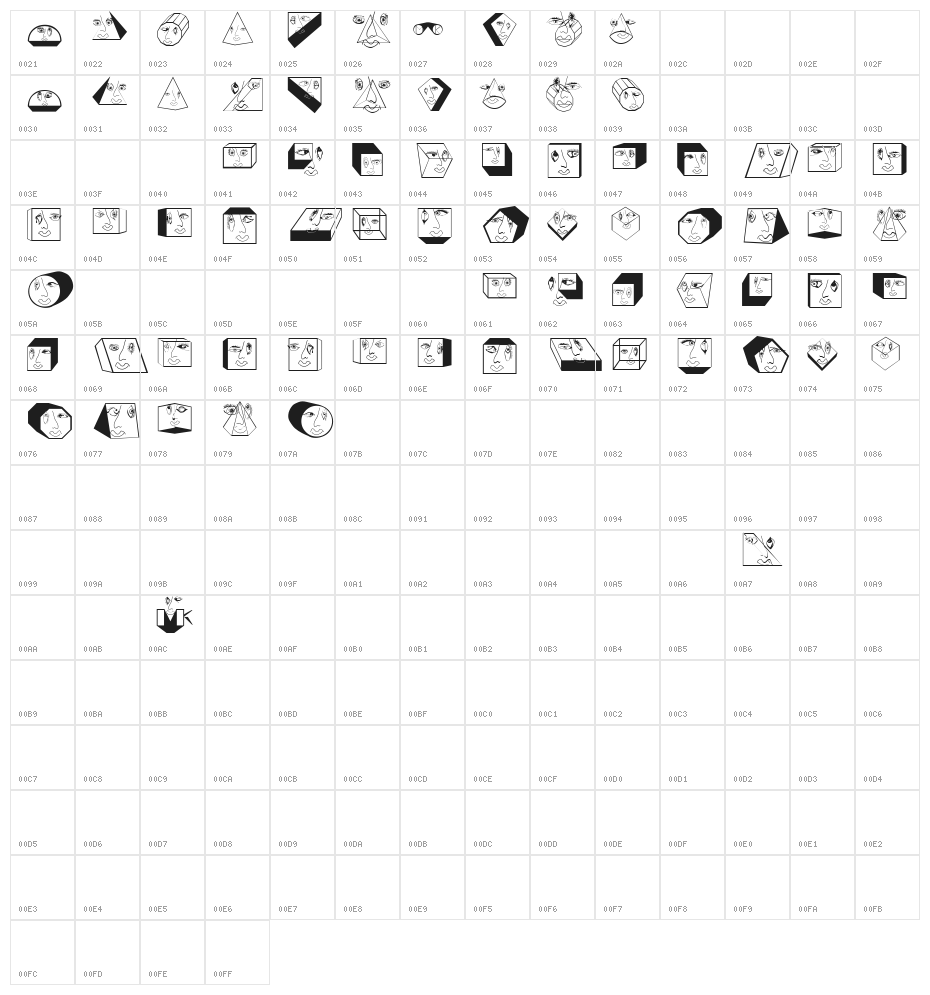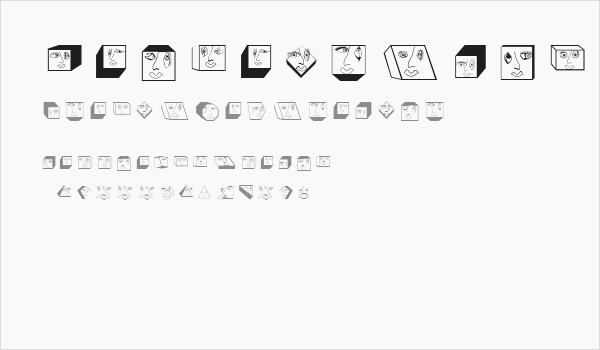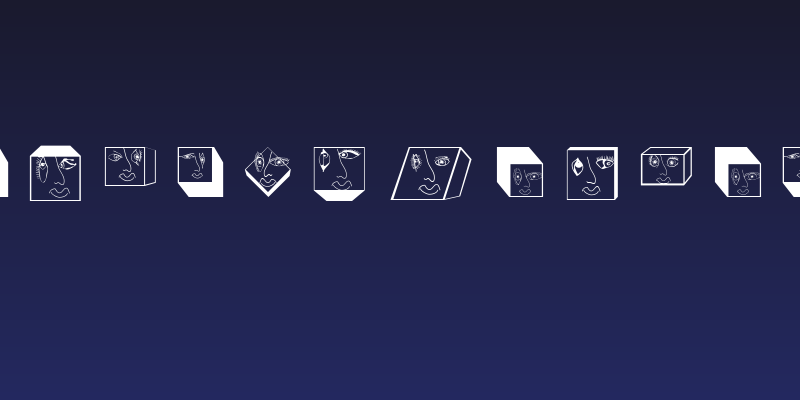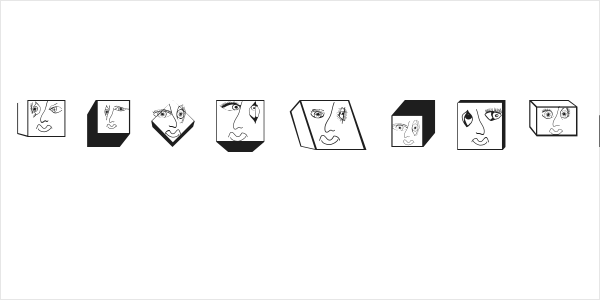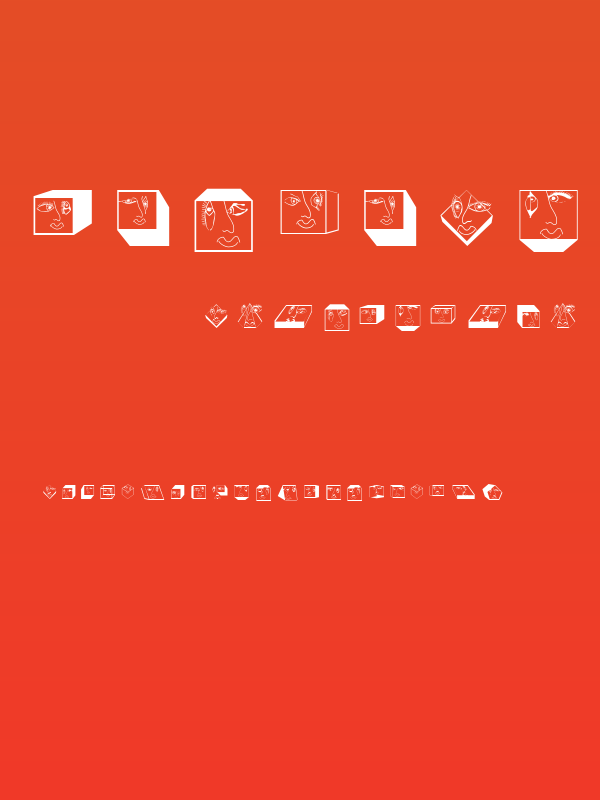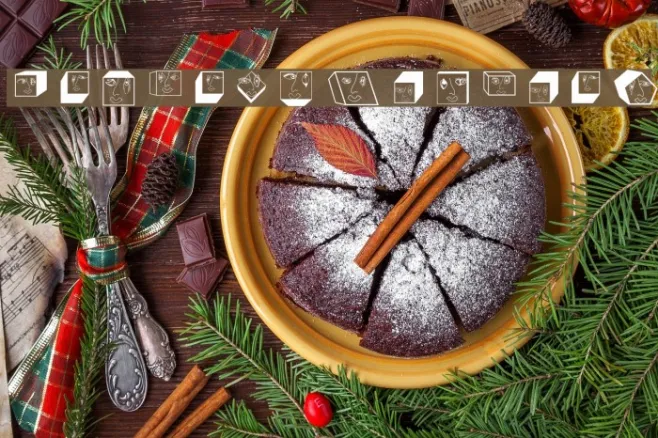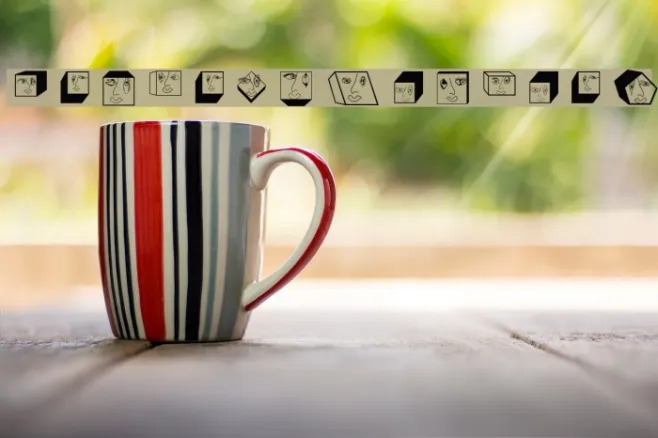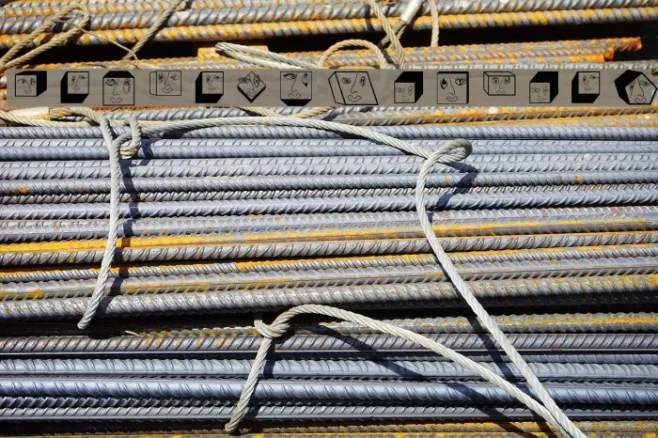
GeometricFaces Font
GeometricFaces Description
A highly decorative and playful display font where each character is represented by a unique geometric shape containing an abstract, Picasso-esque face illustration. The glyphs are outlined with minimal interior detail, combining geometric forms with expressive facial features, resulting in a whimsical and artistic appearance.
| Overall Style | Decorative, Artistic, Whimsical |
| Use Case | Logos, Headlines, Posters, Artistic projects |
| Proposed Projects | Children’s books, art posters, creative branding, album covers, editorial illustrations, event invitations. |